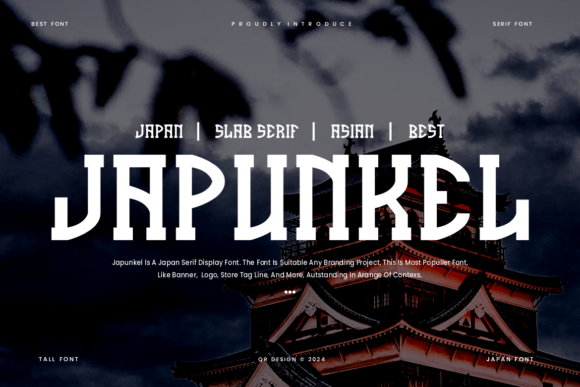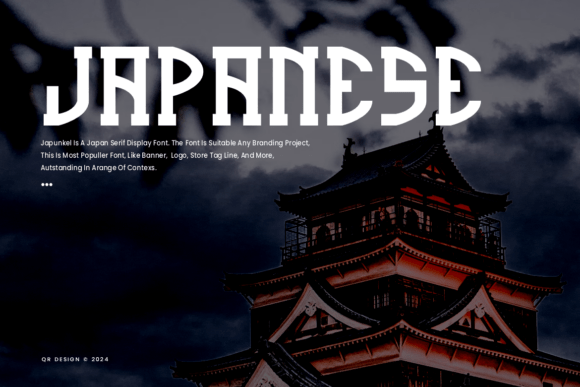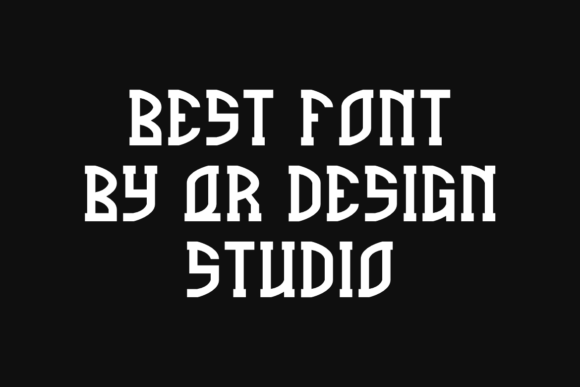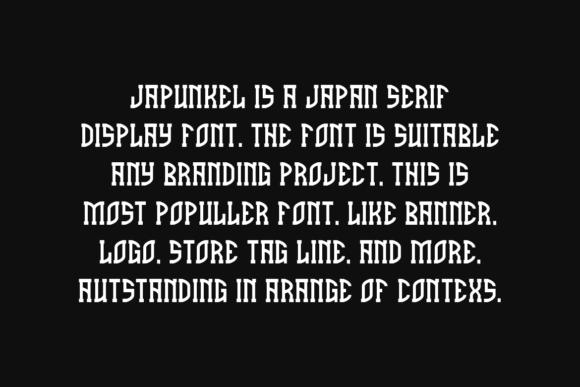
Japunkel Font: A Bold Display Font for Unique Logo Design & Branding!
About the Japunkel Font
Step up your design game with Japunkel Font, a font that exudes confidence and style. Japunkel Font is a bold and authentic display font.
The font is suitable for any branding project, like logos, sports, and many more.
Outstanding in a wide range of contexts.
Japunkel’s bold strokes make it ideal for headlines, short impactful statements, and logos requiring a strong visual presence. It excels in posters, packaging design for premium products, and branding projects aiming for a confident, assertive image. However, its weight and distinctive character make it less suitable for body text or UI elements where readability over extended lengths is crucial.
Its strong, almost rebellious personality pairs well with clean sans-serifs like Futura or Helvetica for a balanced contrast. For a more sophisticated feel, consider pairing it with a classic serif such as Garamond or a slightly more playful script font like Allura, which softens its boldness. Geometric sans-serifs provide a modern counterpart, while a neutral font like Lato can create a versatile pairing.
Japunkel projects an aura of bold confidence and modern authenticity. It’s the perfect choice for brands that want to convey strength, originality, and a touch of rebellion.